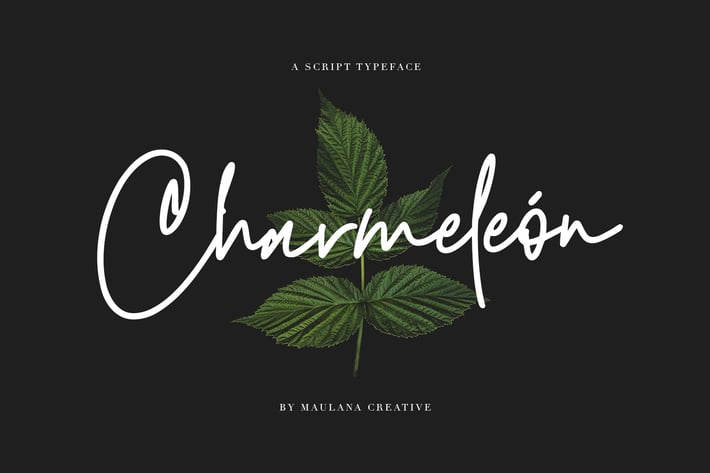
Charmeleon Script Typeface
Give your designs an authentic brush handcrafted feel. "Charmeleon" is perfectly suited to signature, stationery, logo, typography quotes, magazine or book cover, website header, flyer, clothing, branding, packaging design and more.
- Stylistic Alternate Include
- Ligature Includes: al bi cc di fl go th ab ll my no oo ss tt ul yo